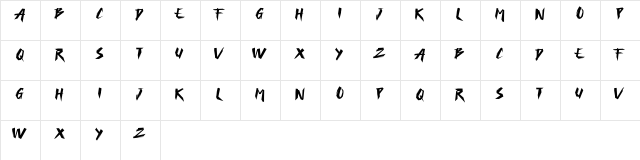
FREEDAY Regular
Design Context for FREEDAY Typeface
FREEDAY is a composed and adaptable typeface that performs quietly and consistently across a wide range of design contexts.